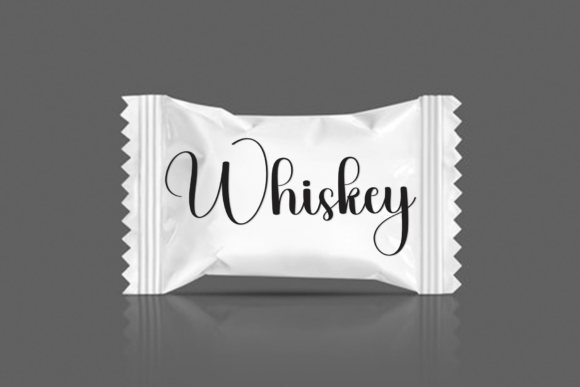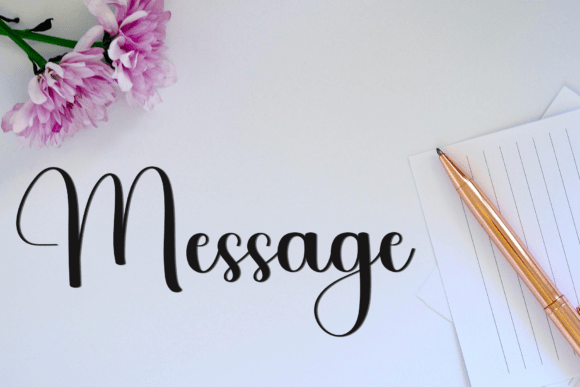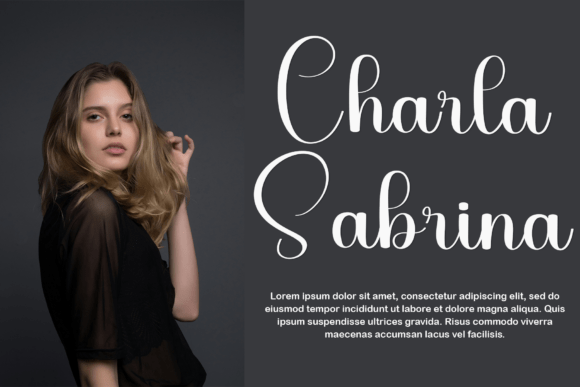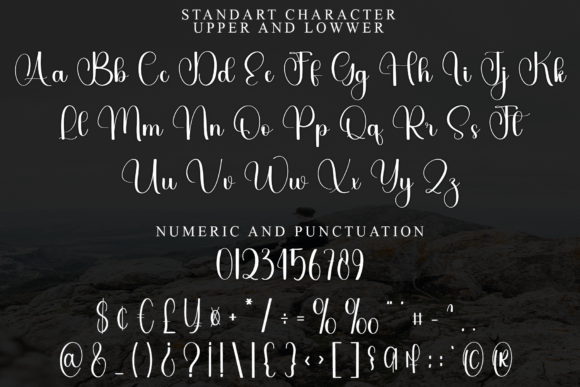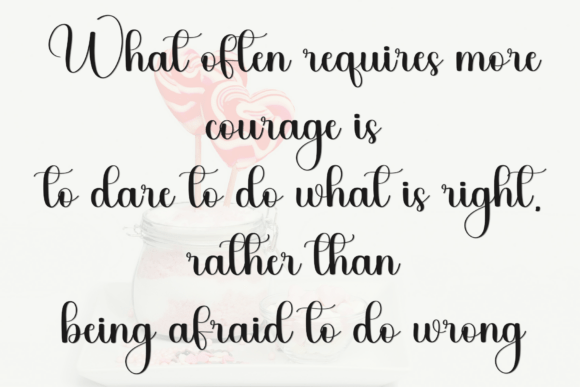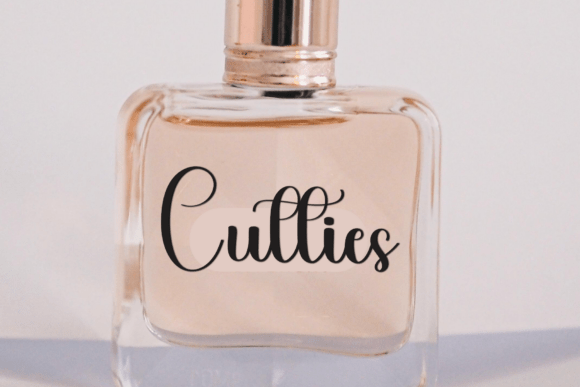
Introducing Building Font: The Ultimate Holiday Typeface
The holiday season is upon us, and what better way to get into the spirit than with a festive and merry typeface? Look no further than Building Font, a decorative typeface that captures the essence of the holiday season. With its whimsical flair and enchanting elements, this font is perfect for adding a touch of magic to your designs.
A Festive Font for Holiday Projects
Building Font is specifically designed to bring a cheerful and nostalgic ambiance to your words. Its decorative elements and whimsical flair make it perfect for a variety of holiday-themed projects, including greeting cards, gift tags, and festive posters. Whether you’re a designer, crafter, or DIY enthusiast, this font is sure to become a staple in your collection.
Key Features of Building Font
- Decorative Elements: The font features a range of decorative elements, including swashes, flourishes, and other embellishments. These elements add a touch of whimsy and festivity to your designs, making them perfect for holiday-themed projects.
- Whimsical Flair: Building Font has a distinctly playful and whimsical feel, making it perfect for designers and crafters who want to add a touch of personality to their work.
Uses for Building Font
Building Font is incredibly versatile, and can be used for a wide range of holiday-themed projects, including:
- Greeting Cards: Add a touch of festivity to your holiday greeting cards with Building Font. Its decorative elements and whimsical flair make it perfect for creating cards that are both fun and elegant.
- Gift Tags: Building Font is also perfect for creating custom gift tags. Its compact size and decorative elements make it easy to add a personal touch to your gifts.
- Holiday Posters: Create eye-catching holiday posters with Building Font. Its bold and festive design makes it perfect for grabbing attention and adding a touch of holiday cheer to your designs.
- Social Media Graphics: Use Building Font to add a touch of festivity to your social media graphics. Its whimsical flair and decorative elements make it perfect for creating engaging and shareable content.
Tips for Using Building Font
To get the most out of Building Font, here are a few tips to keep in mind:
- Experiment with Different Sizes: Building Font looks great in a variety of sizes, from small and delicate to large and bold. Experiment with different sizes to find the one that works best for your project.
- Combine with Other Fonts: Building Font pairs well with a range of other fonts, from simple and elegant to bold and playful. Experiment with different font combinations to find the one that works best for your project.
Building Font is the perfect addition to any designer’s or crafter’s collection. Its festive and merry design, decorative elements, and whimsical flair make it perfect for a wide range of holiday-themed projects. With its PUA encoding and ease of use, Building Font is sure to become a go-to font for designers and crafters looking to add a touch of magic to their work. So why wait? Download Building Font today and let your typography shine with the magic of the holiday season!